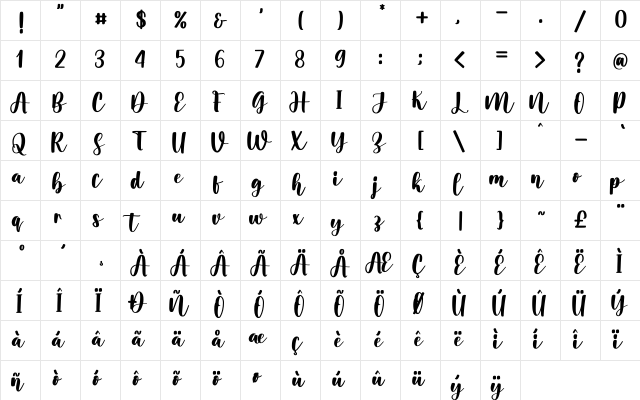
Honiebi_DEMO Regular
Design Context for Honiebi_DEMO Typeface
Honiebi_DEMO is a composed and adaptable typeface that performs quietly and consistently across a wide range of design contexts.